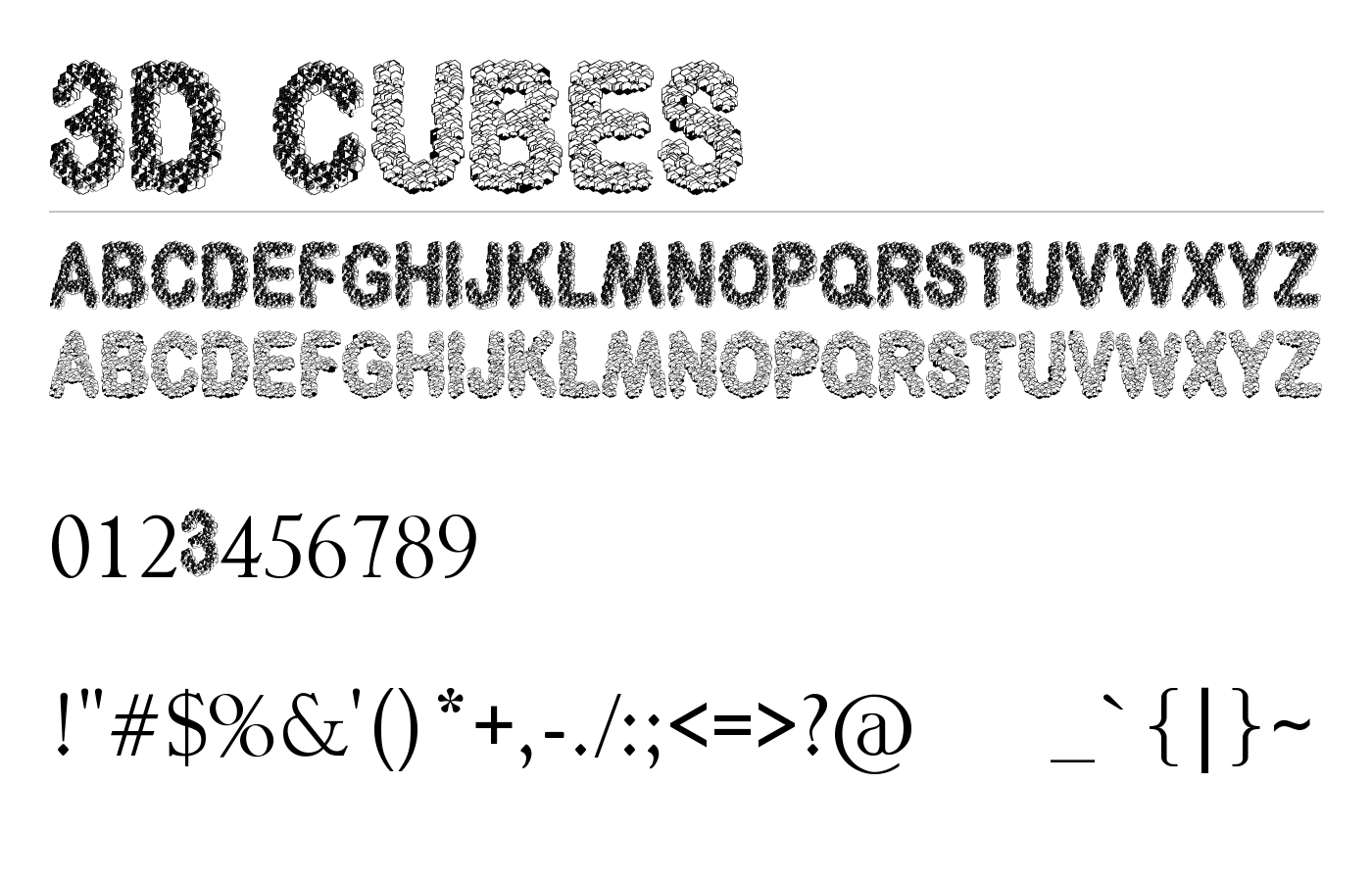
3D Cubes Font is a bold, decorative sans-serif typeface characterized by its unique three-dimensional cube pattern that forms each uppercase letter, creating a textured and dynamic visual effect. This font is playful and eye-catching, perfect for attention-grabbing headlines, logos, or creative posters where a modern and geometric style is desired. Its intricate design works best in large sizes, lending a futuristic and artistic vibe to fashion branding, packaging, and editorial displays.
3D Cubes Font
About 3D Cubes Font
| Font family | 3D Cubes Font |
| Designer | Vidkä |